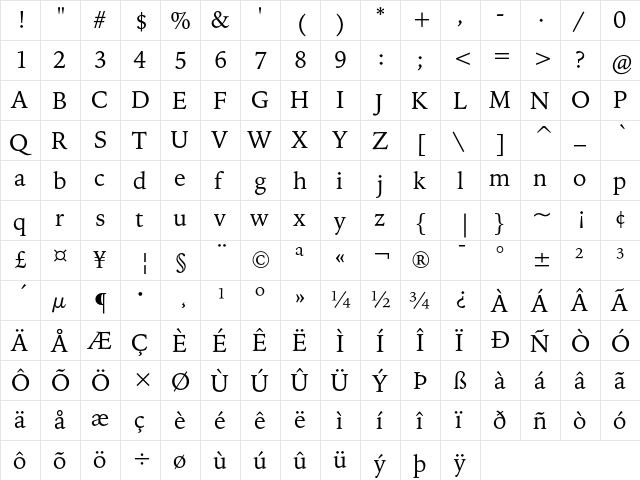
Bitstream Iowan Old Style Regular
Design Context for Bitstream Iowan Old Style Typeface
Bitstream Iowan Old Style offers clean, dependable letterforms without strong stylistic allegiance, making it a practical choice for designers who need flexibility.
Pro Tip: Use Bitstream Iowan Old Style in both headline and body roles to test its range before committing to a single application.